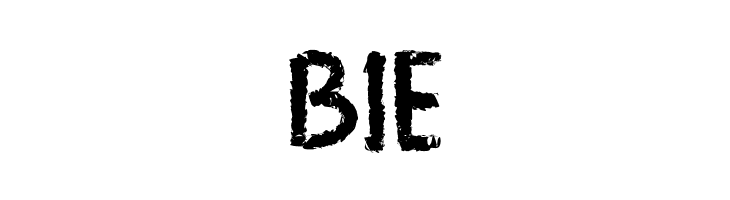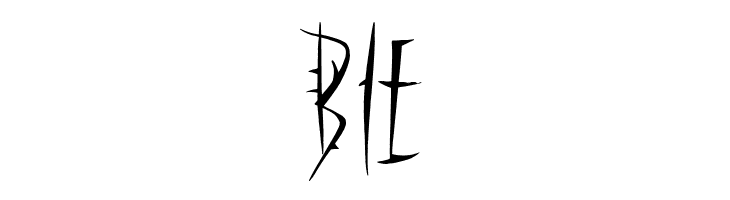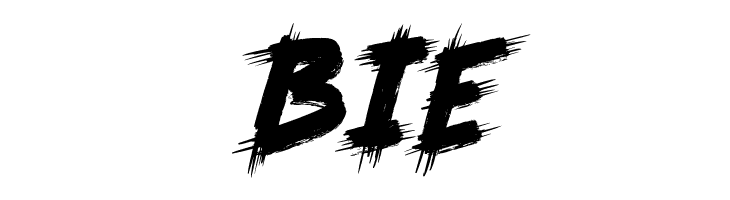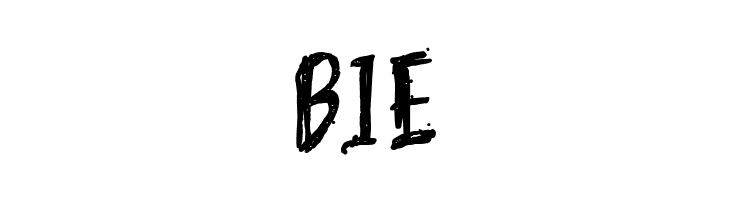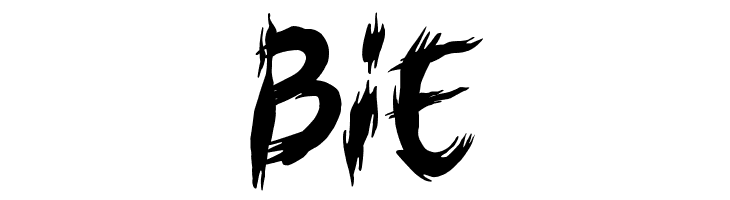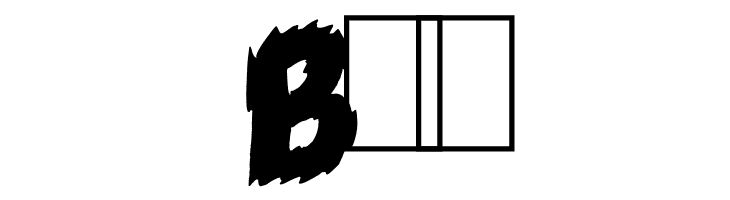
A bold, textured font with a spooky, hand-drawn appearance.
A sharp, thorny font with a dramatic and edgy appearance.
A bold, jagged font with a raw, hand-drawn appearance.
A raw, edgy font with hand-drawn, brush-like strokes and a distressed appearance.
A bold, jagged font with a distressed, horror-themed appearance.
A distressed, grungy font with jagged edges and an intense, chaotic style.
A bold, distressed font with a dramatic, melting effect.
A bold, jagged font with a dripping, horror-themed design.
A bold, jagged font with a raw, energetic style, perfect for dramatic themes.
A bold, jagged font with a horror-themed, distressed appearance.